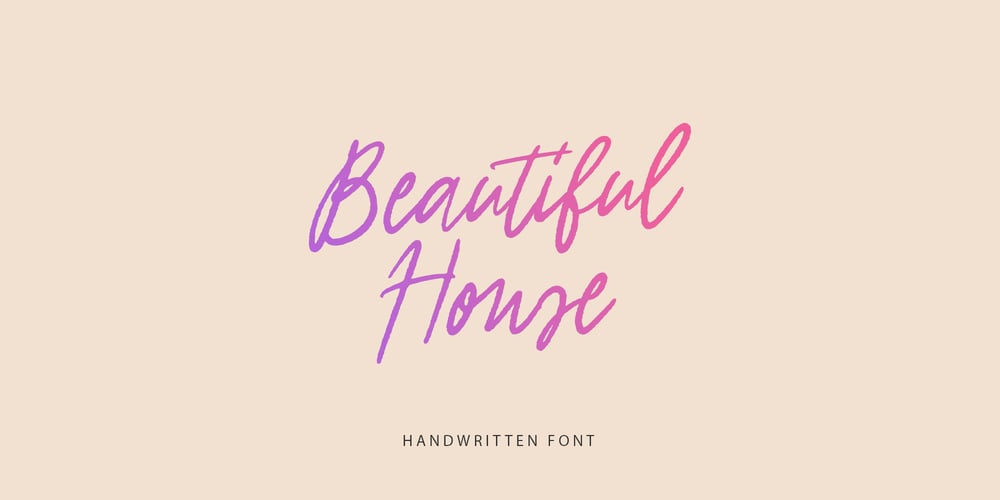
Beautiful House Font Family was designed by Dmitrii Chirkov and published by Supfonts. Beautiful House contains 1 styles and family package options. Beautiful House is a beautiful signature font, fashionable appearance and elegant simplicity of lines. You will fall in love with this fontFont is an open type with clean shapes and precise kerning. It includes ligatures encoded by the PUA.Language support: All European languagesDon’t forget to subscribe so you don’t miss out on the new awesome fonts